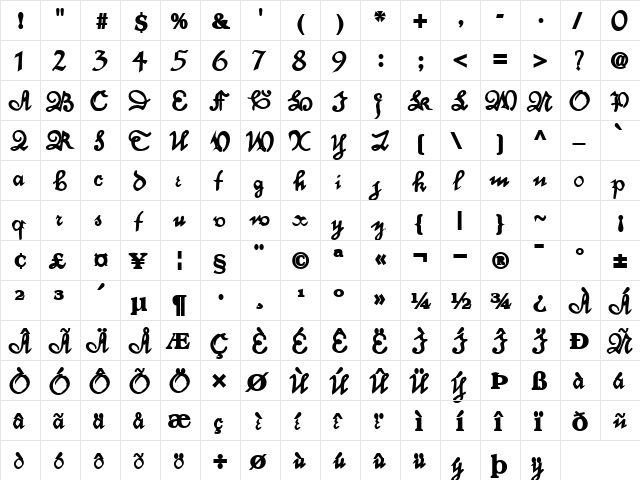
DancerPrancer Bold
Design Context for DancerPrancer Typeface
DancerPrancer is a composed and adaptable typeface that performs quietly and consistently across a wide range of design contexts. Its bold stroke weight gives it real presence on the page.